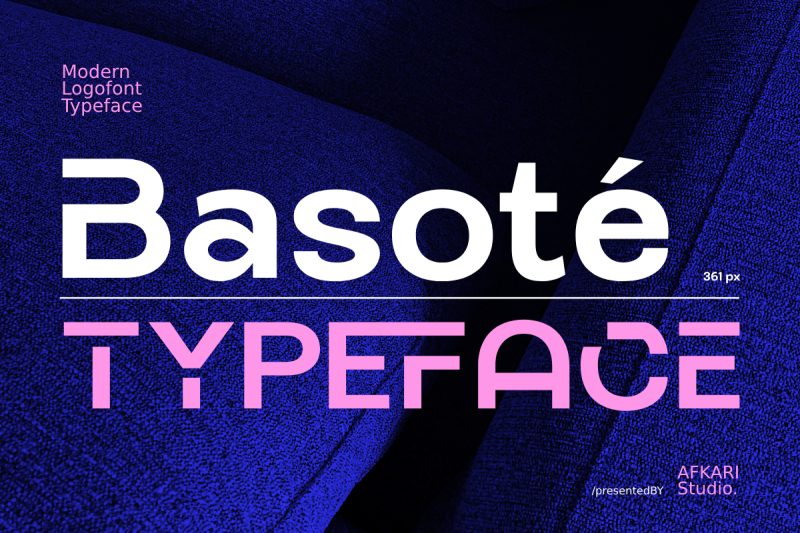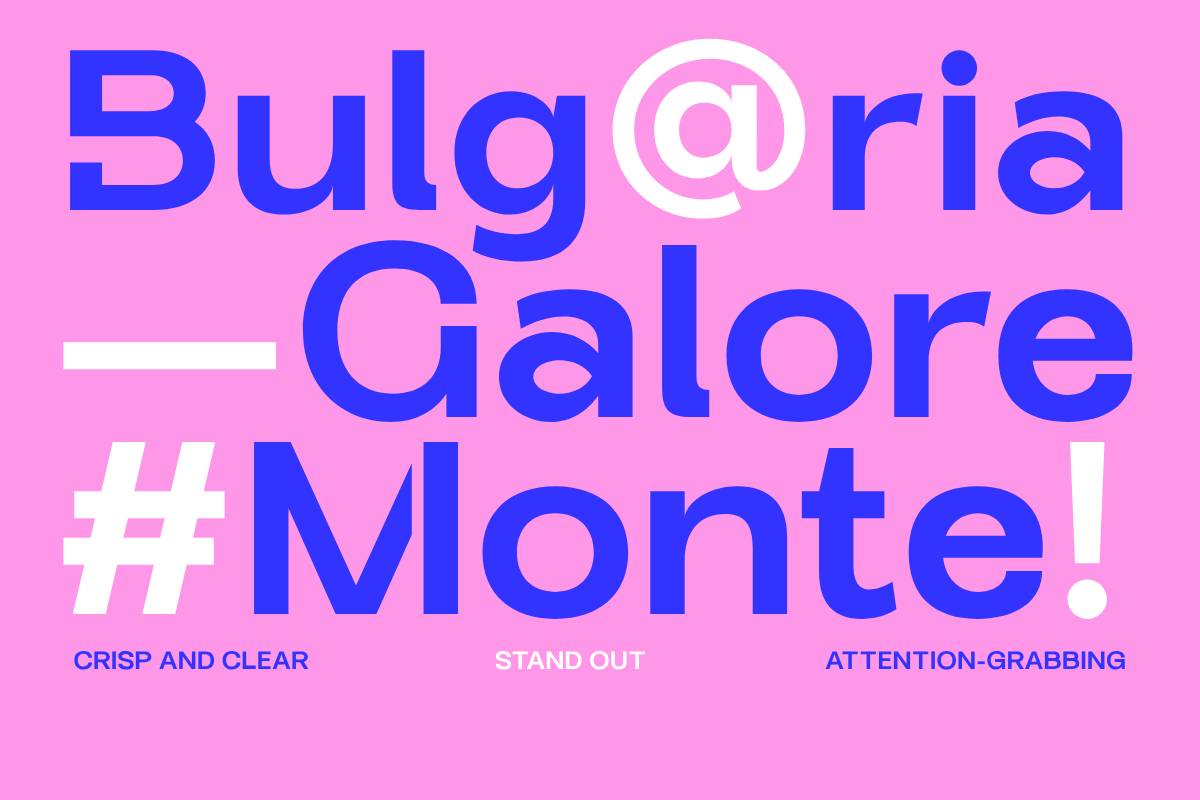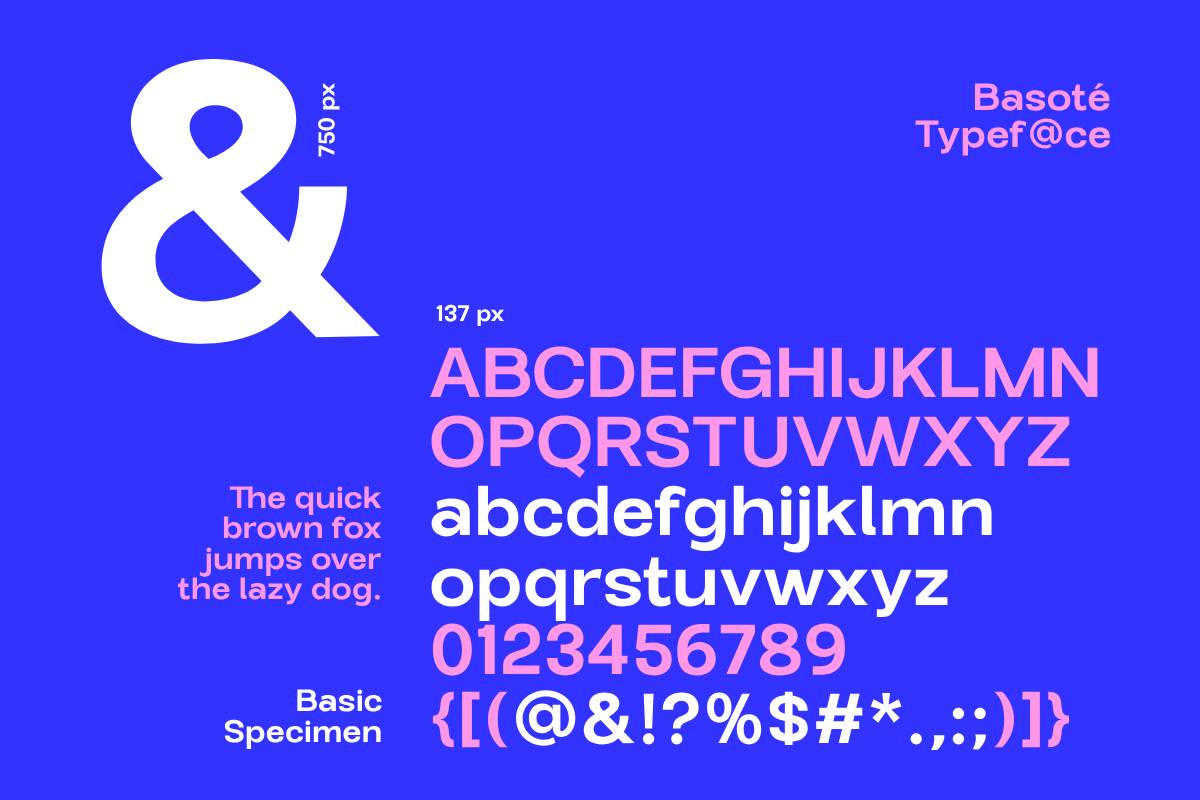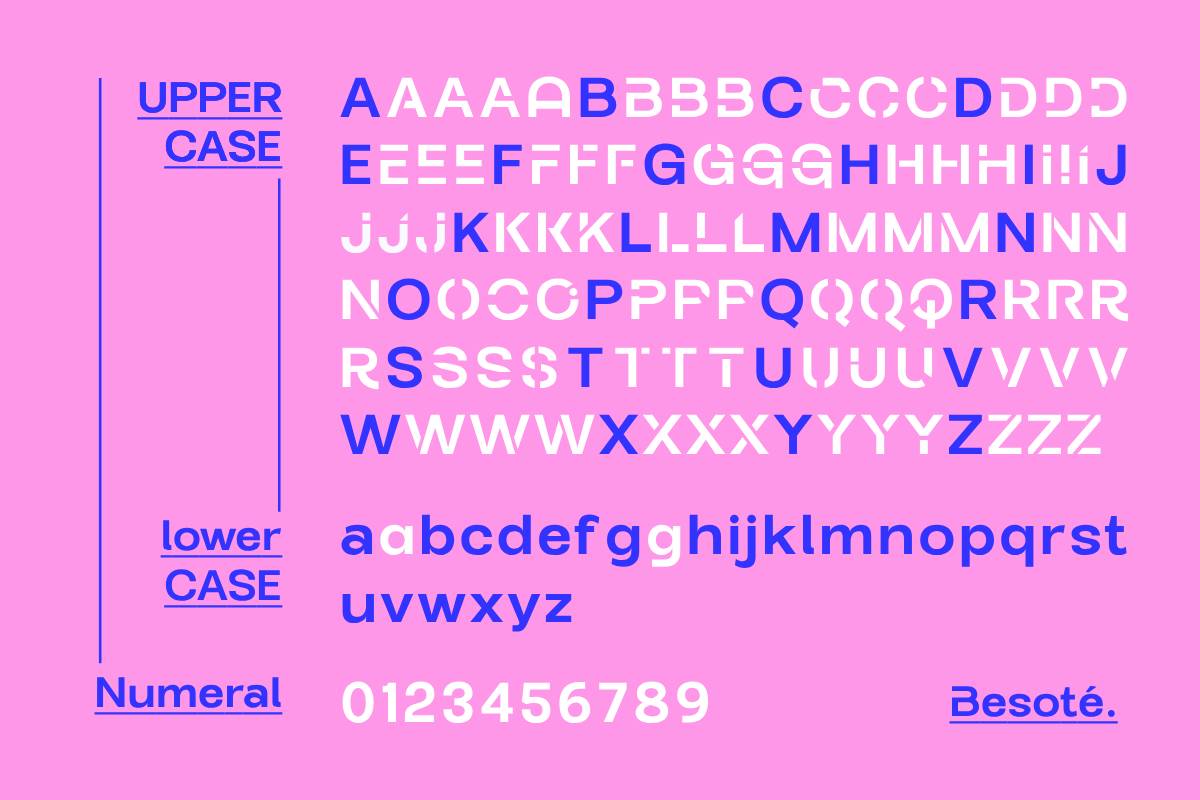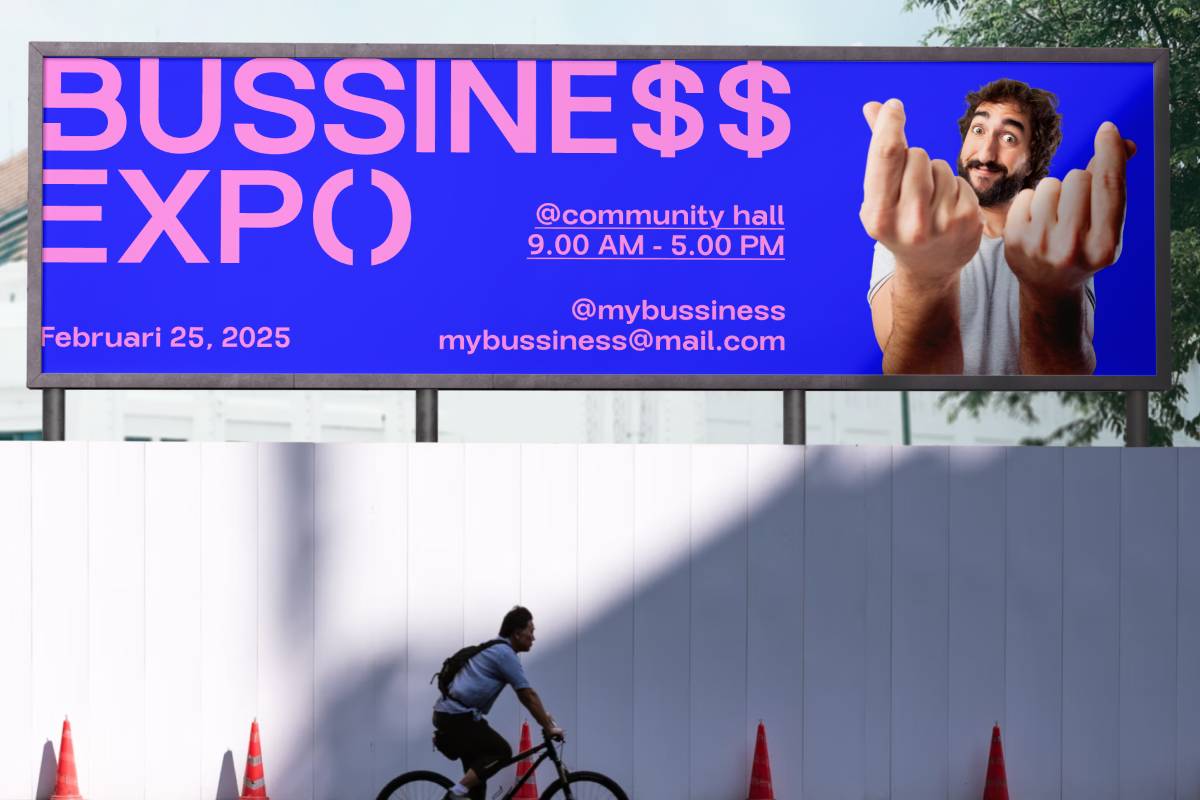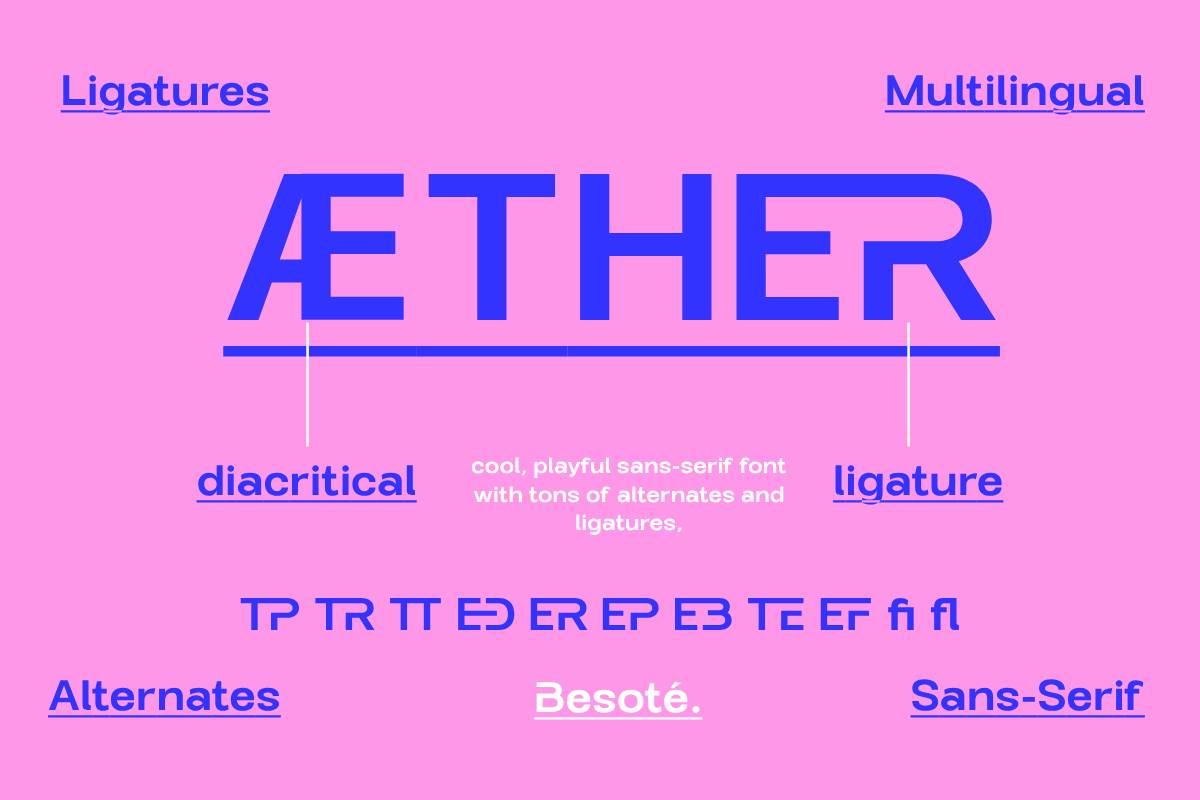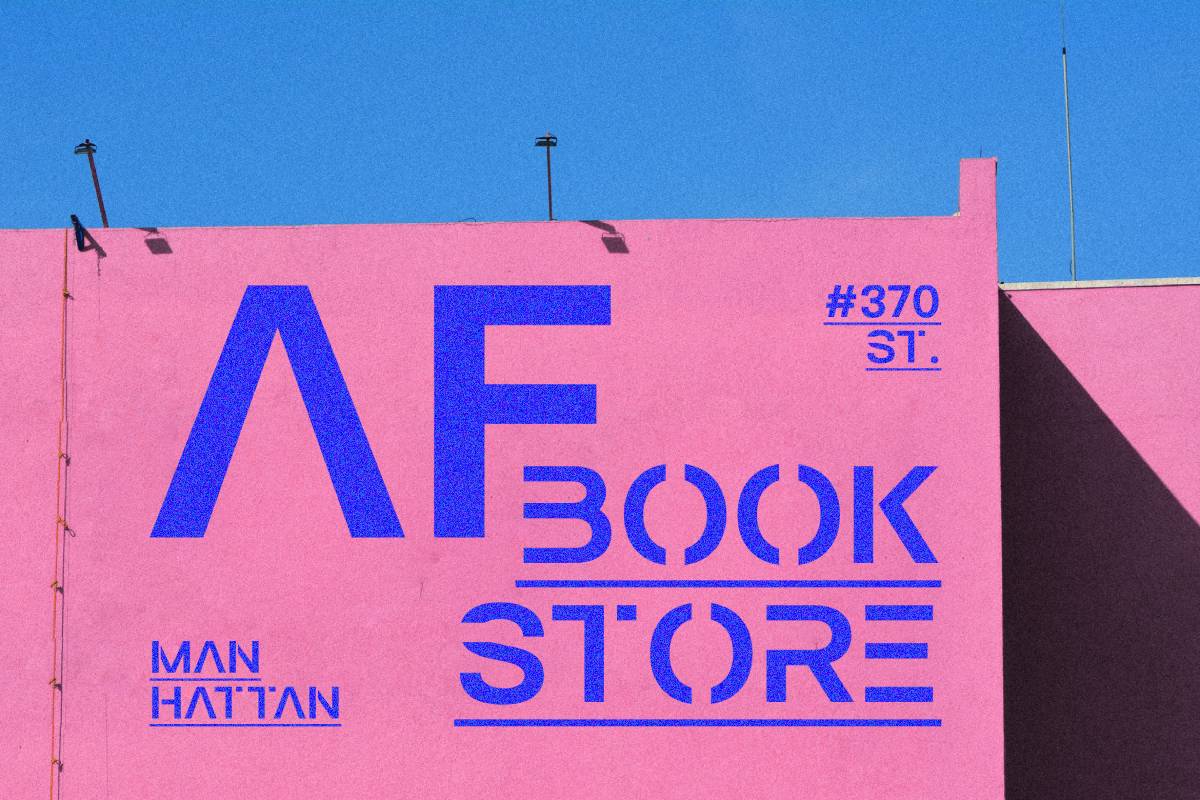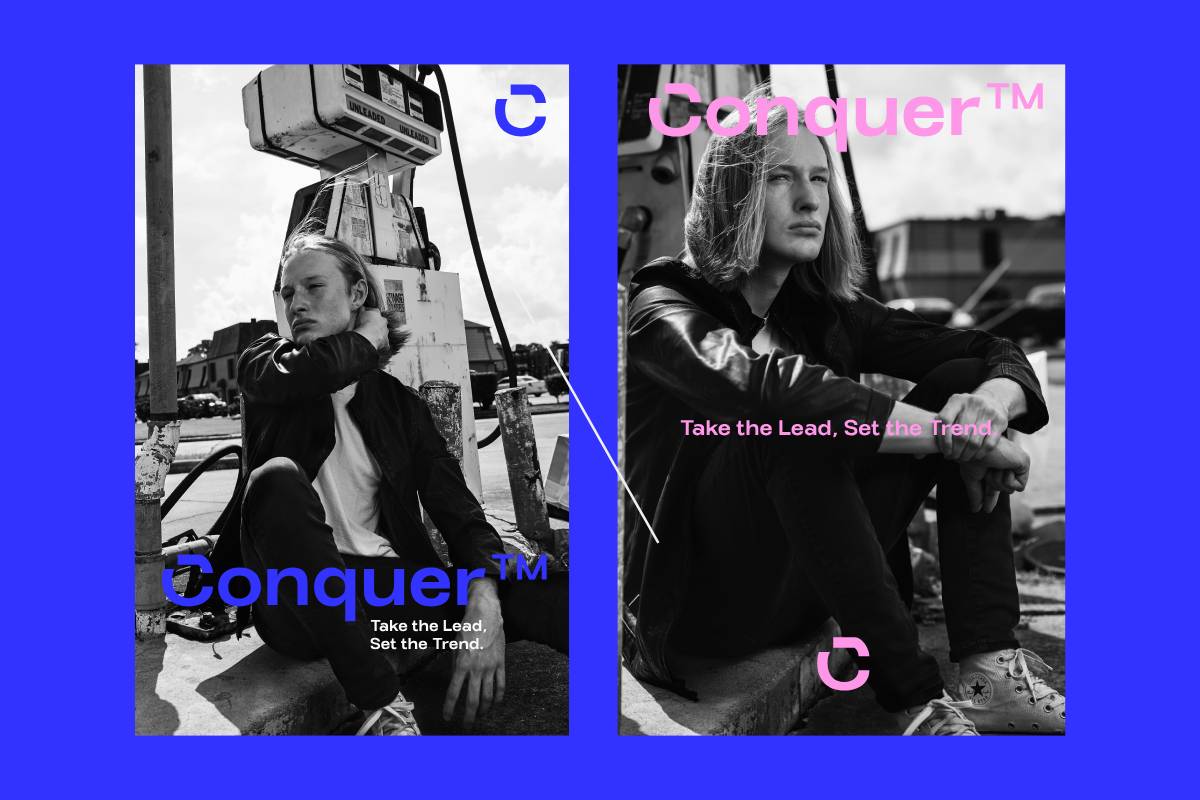
Basote - Modern Logo Font Typeface
Introducing Basote – Modern Logo Font Typeface. Basote is a sleek, sophisticated typeface crafted specifically for modern logo design. Its clean lines and refined forms make it the perfect tool for creating iconic, memorable branding that exudes professionalism and contemporary style.
At its core, Basote embodies elegance and versatility, offering a balance between modern minimalism and impactful design. With smooth curves and precise geometry, it’s ideal for brands aiming to leave a lasting impression across multiple platforms and media.
Highlighted Features:
• Complete Set: Includes uppercase letters, numerals, and punctuation for all your branding needs.
• Modern & Sleek Design: Streamlined, minimalist characters that convey professionalism and style.
• Versatile Usage: Perfect for logos, branding, corporate identities, and digital projects.
• Multilingual Support: Features characters for diverse languages, including accents like ä, ö, ü, Ä, Ö, Ü, ß, and more.
Basote is more than just a font; it’s a design tool that elevates brands, making them both distinctive and memorable. Its versatility allows it to be used for logos, modern websites, packaging, business cards, and more, seamlessly adapting to various styles and industries.
With Basote, each design becomes a statement of elegance and modernity. Whether you’re crafting a sleek tech logo or designing a contemporary brand identity, this typeface adds a touch of class and sophistication.
In conclusion, Basote – Modern Logo Font Typeface isn’t just another font; it’s your go-to solution for clean, contemporary design. Embrace its precision, leverage its versatility, and let Basote elevate your creative projects to new heights of modern branding. Unlock the power of simplicity and elegance, where each character speaks of professionalism and every design showcases the future of logos.